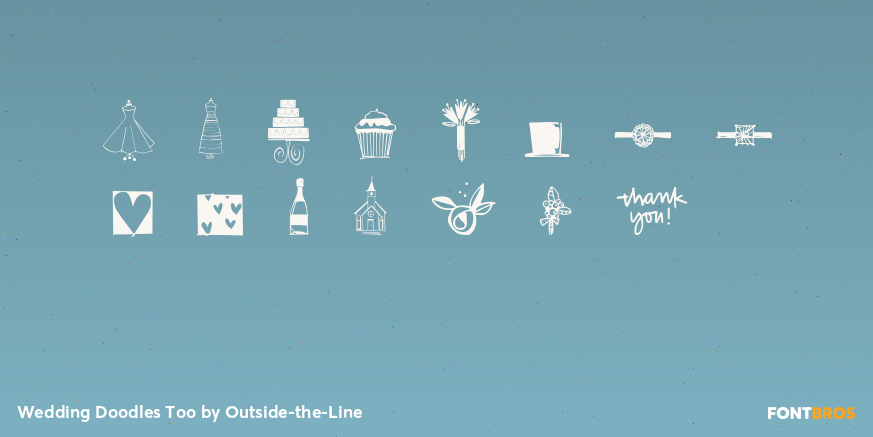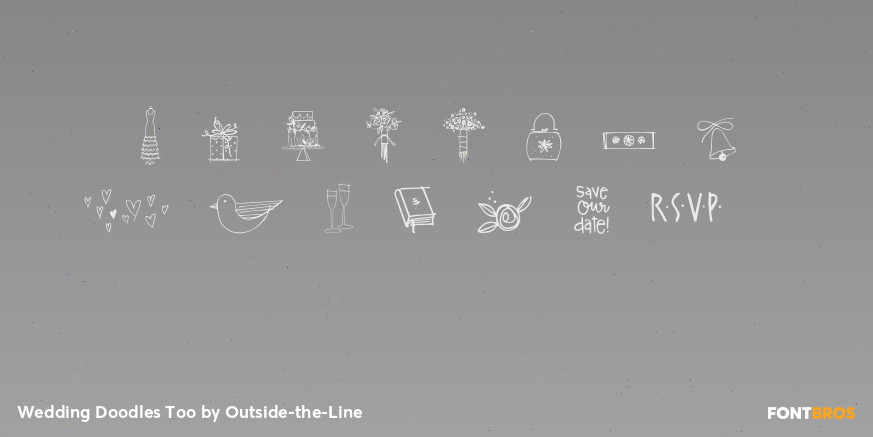
Wedding Doodles Too
Font Family by Outside-the-Line
Wedding Doodles Too is the follow-up font to the popular Wedding Doodles.
This font gives you all you need to make your own invitations, announcements, RSVP cards, save your date cards and thank you notes. Font includes 3 sets of hand-lettered words? save our date, thank you and RSVP. Just add a wedding cake, flowers, top hat, wedding bell, heart or flower and you are done.